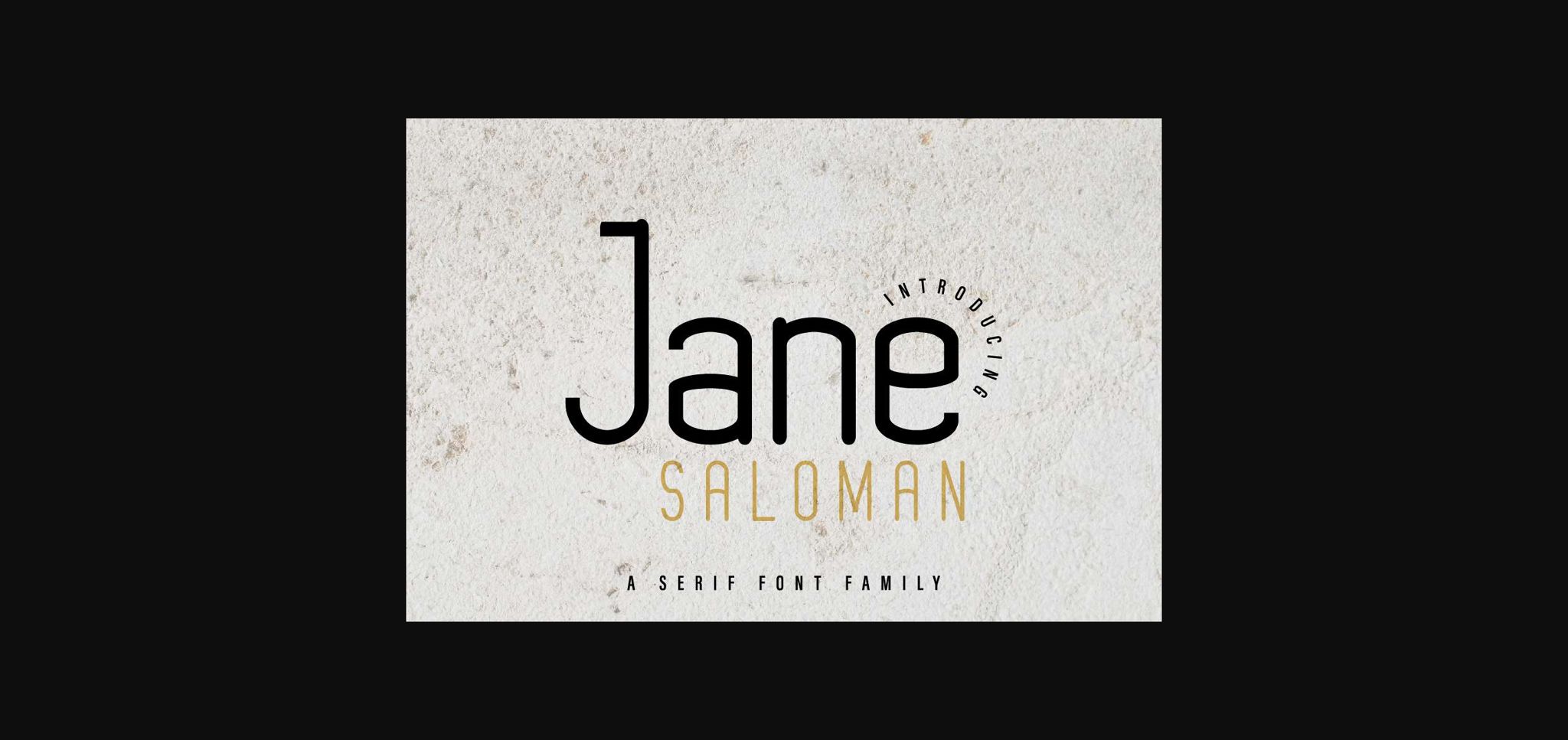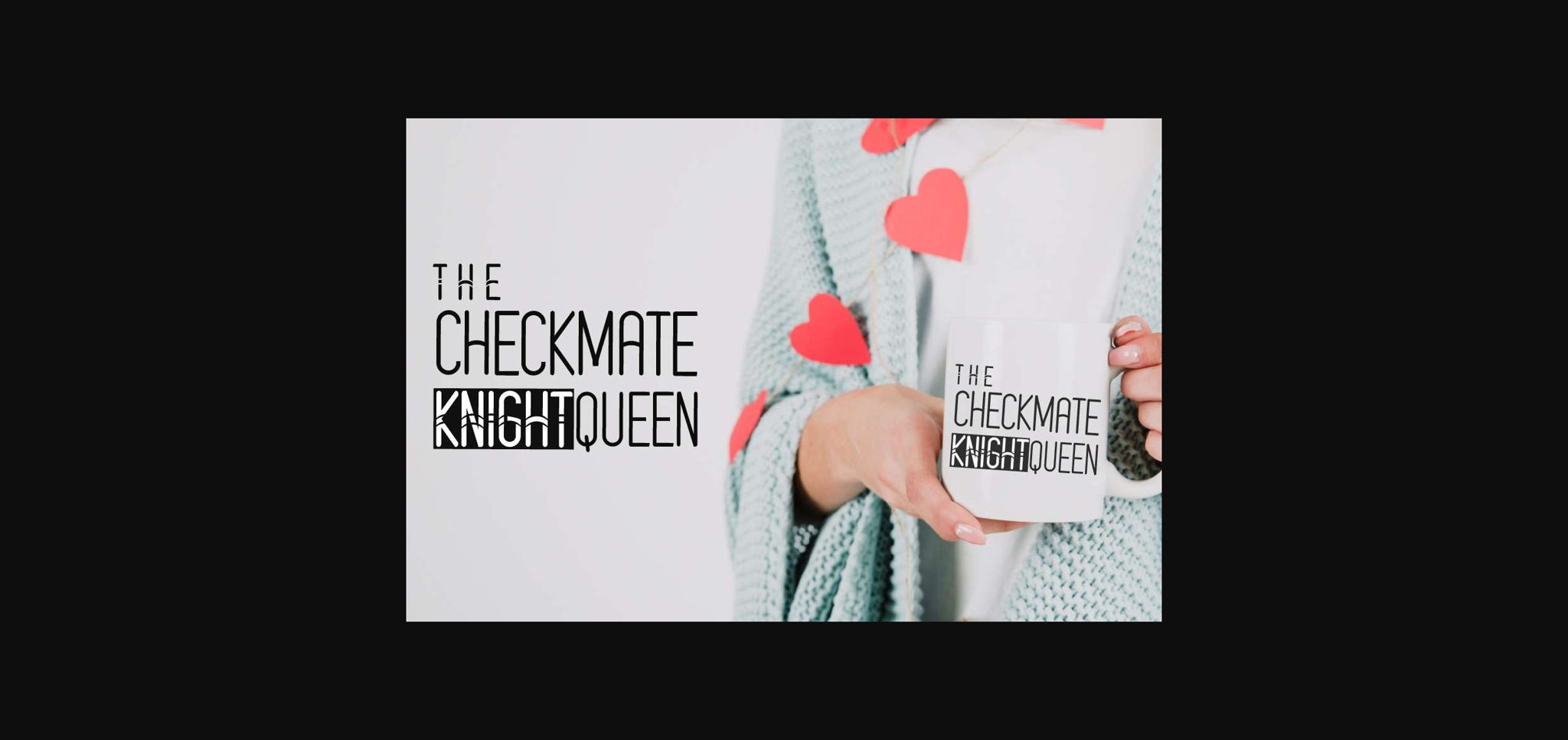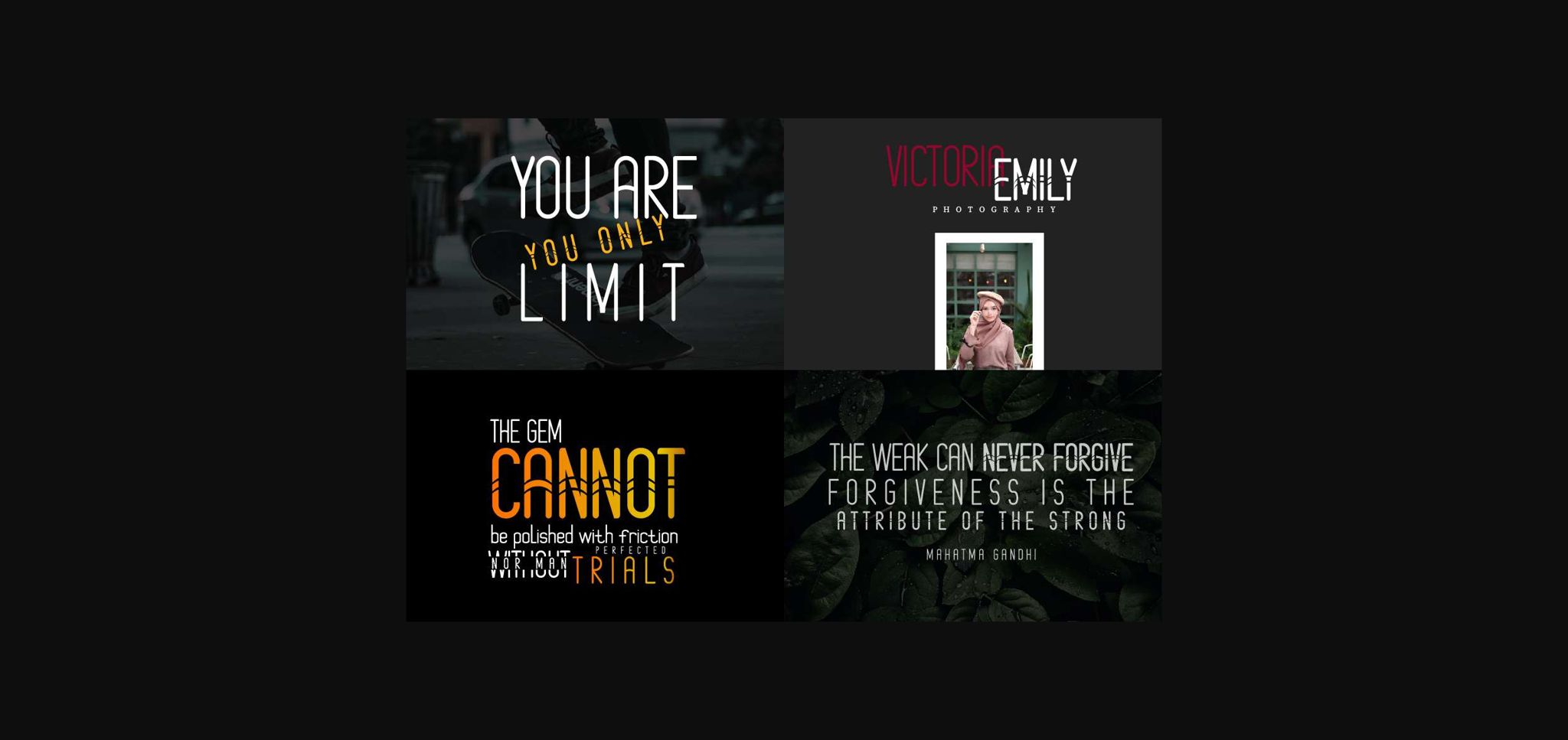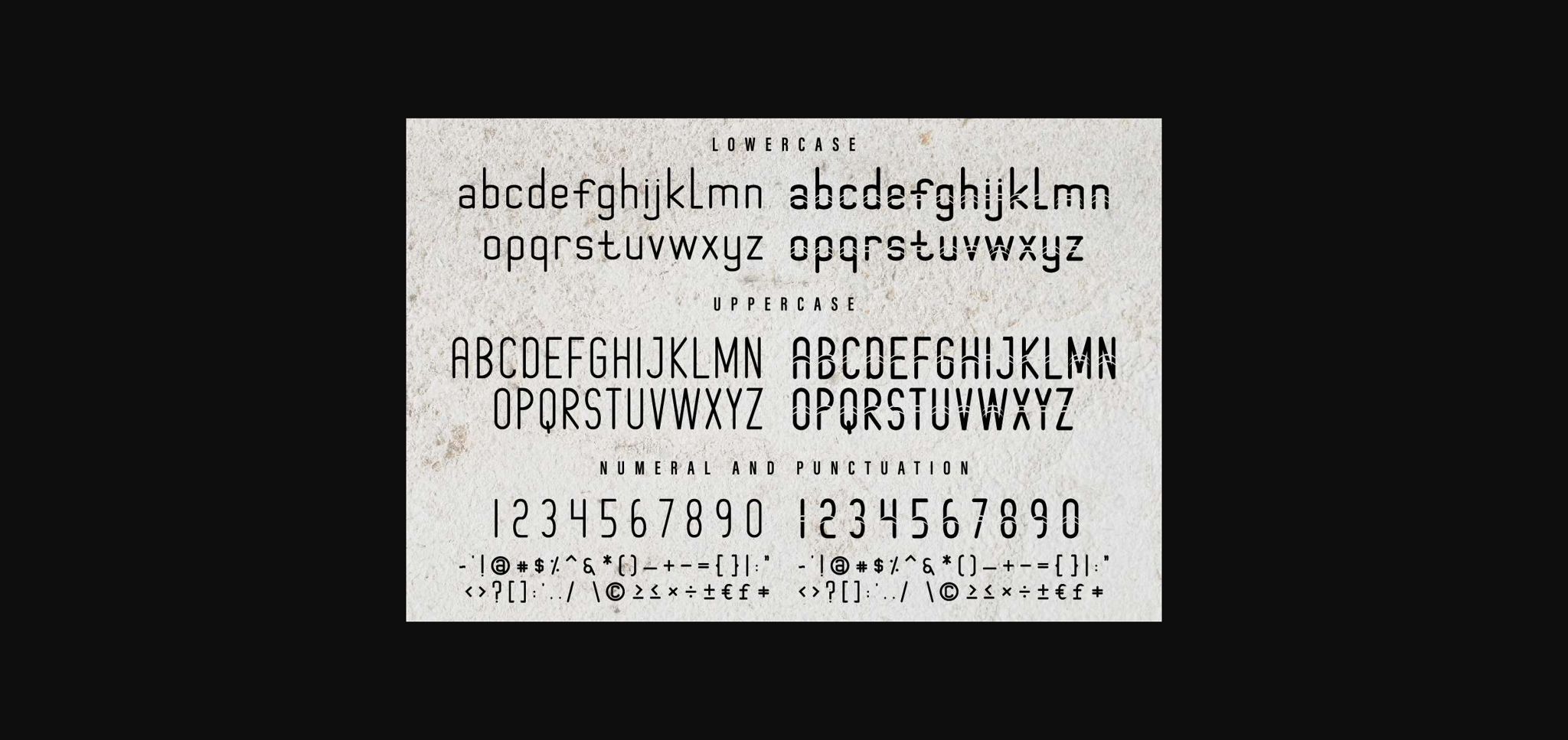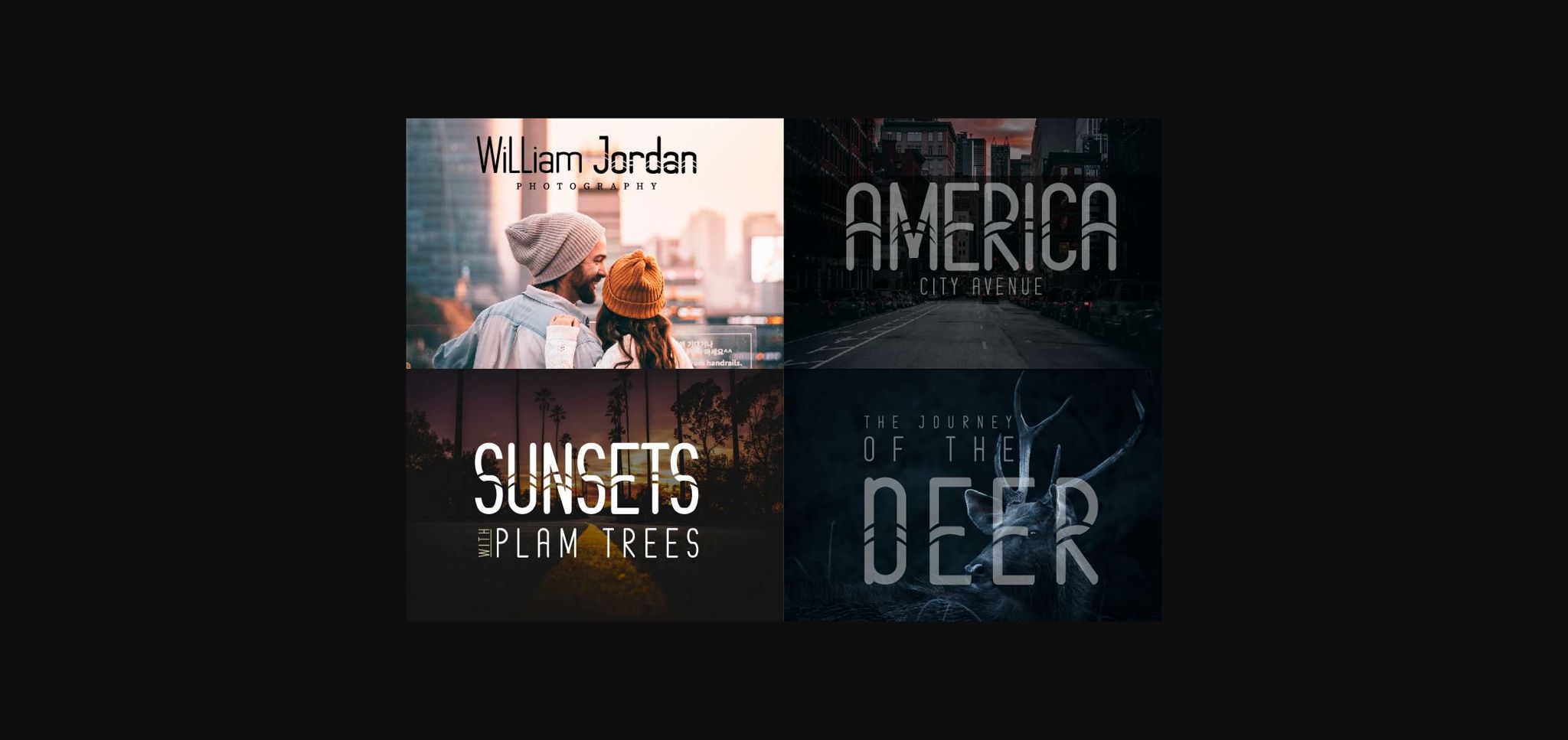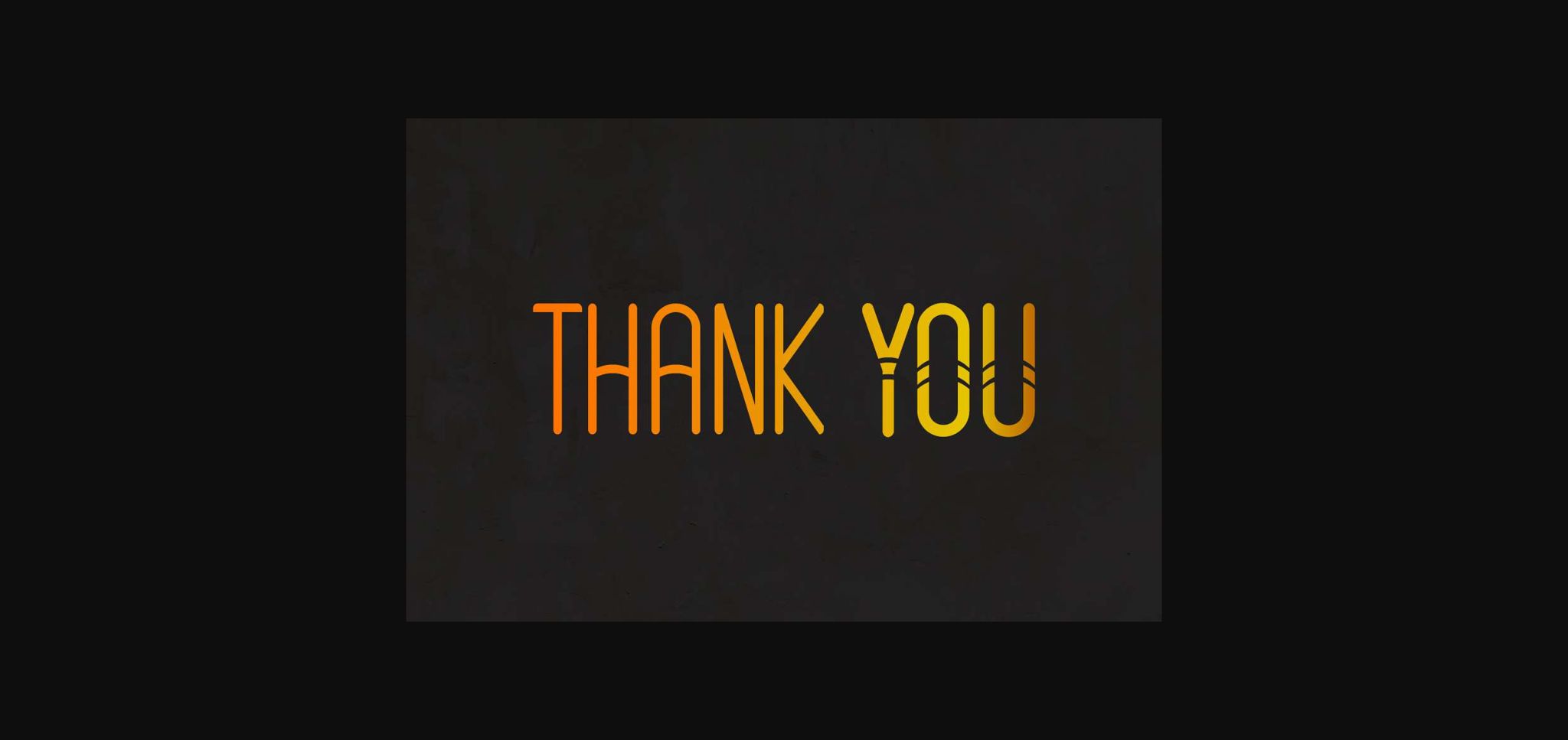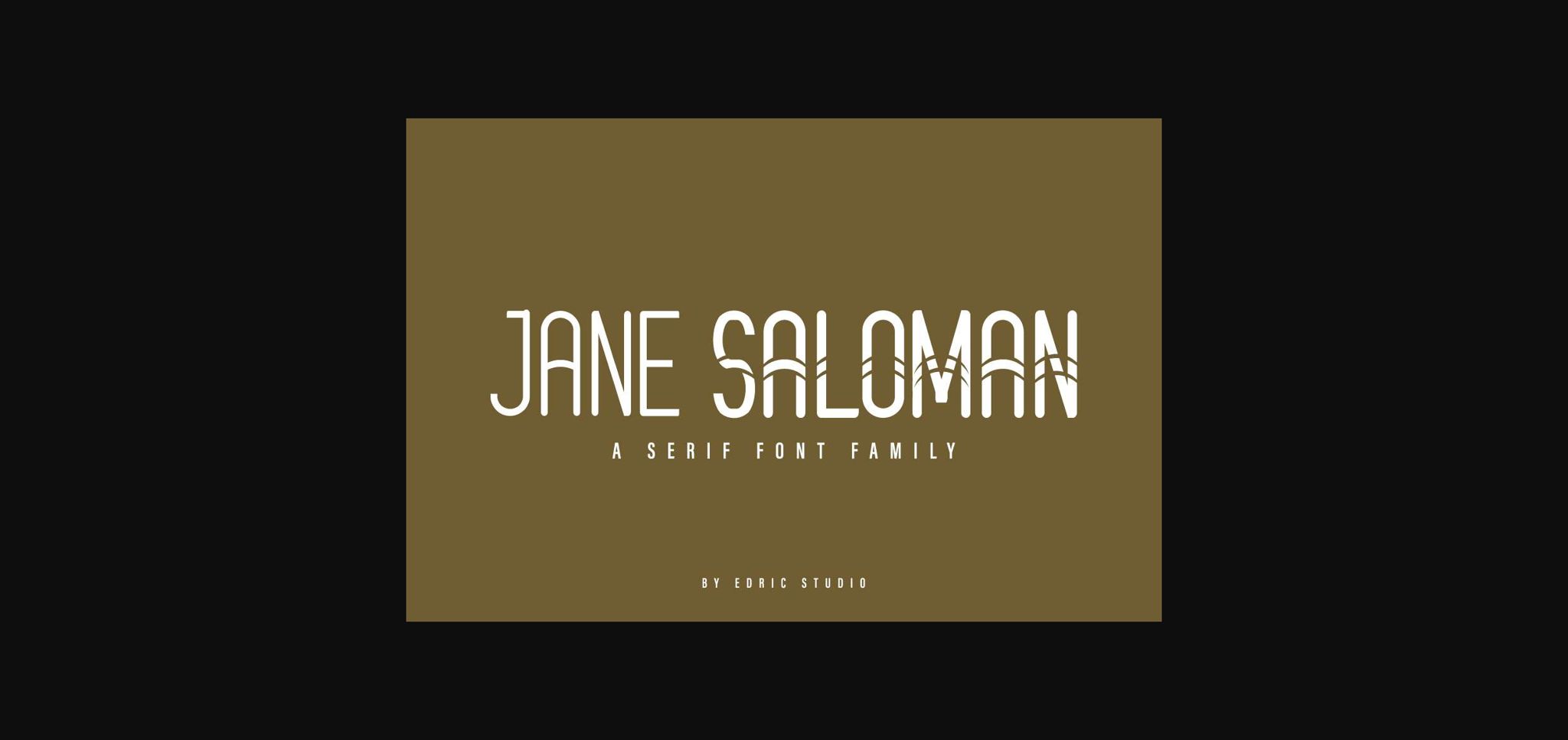
HomeSans Serif FontsJane Saloman Font Sans Serif Fonts Jane Saloman Font FacebookXPinterestWhatsApp 1 of 9 ... Jane Saloman Font Poster 2... Jane Saloman Font Poster 3... Jane Saloman Font Poster 4... Jane Saloman Font Poster 5... Jane Saloman Font Poster 6... Jane Saloman Font Poster 7... Jane Saloman Font Poster 8... Jane Saloman Font Poster 9... About Jane Saloman Font Jane Saloman is a minimal and neat sans serif font. It can easily be matched to an incredibly large set of projects, so add it to your creative ideas and notice how it makes them stand out! DOWNLOAD NOW People also explored Nichole Script Font Bossthy Font Pistolero BB Safelight Font Horthellis Font Letter Notes Font Deer Horn Font Shootty Font Memory 411 0 TagsJane Saloman Font Previous articleDogie FontNext articleSkincraft Font LEAVE A REPLY Cancel reply Comment: Please enter your comment! Name:* Please enter your name here Email:* You have entered an incorrect email address! Please enter your email address here Website: Save my name, email, and website in this browser for the next time I comment. Personal Use Free Degrassi Personal Use Free Read more about this font Vanilla Whale Personal Use Free Read more about this font Lovely Girl Personal Use Free Read more about this font Nugo Sans Personal Use Free Read more about this font BLOG How to Cut Any Font on Cricut: Convert a Font to SVG (Free) Turn any font into a clean SVG so it cuts crisp on Cricut - a quick 3-step workflow using a free font-to-SVG tool. To increase your work productivity, choose the most readable fonts. Using Fonts in Digital Marketing: Tips to Strengthen Your Brand Identity Elegant Wedding Invitation Fonts – Handwritten & Script Fonts